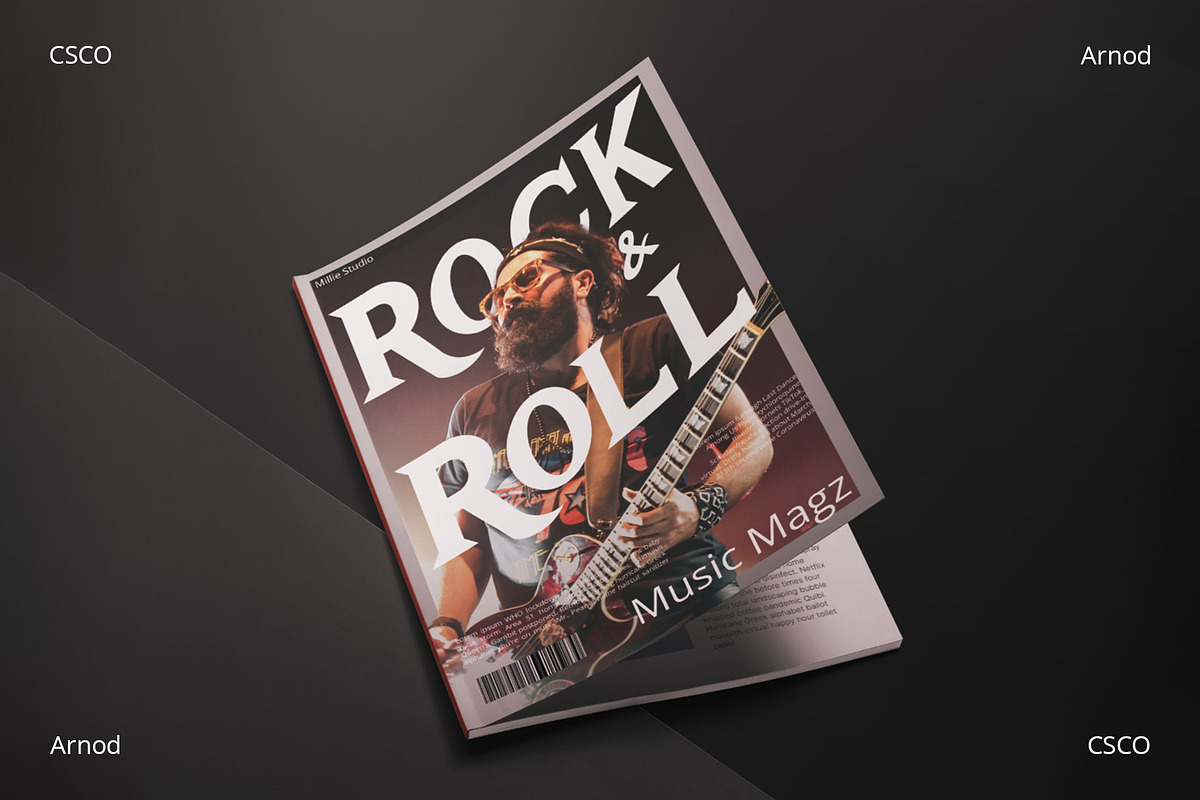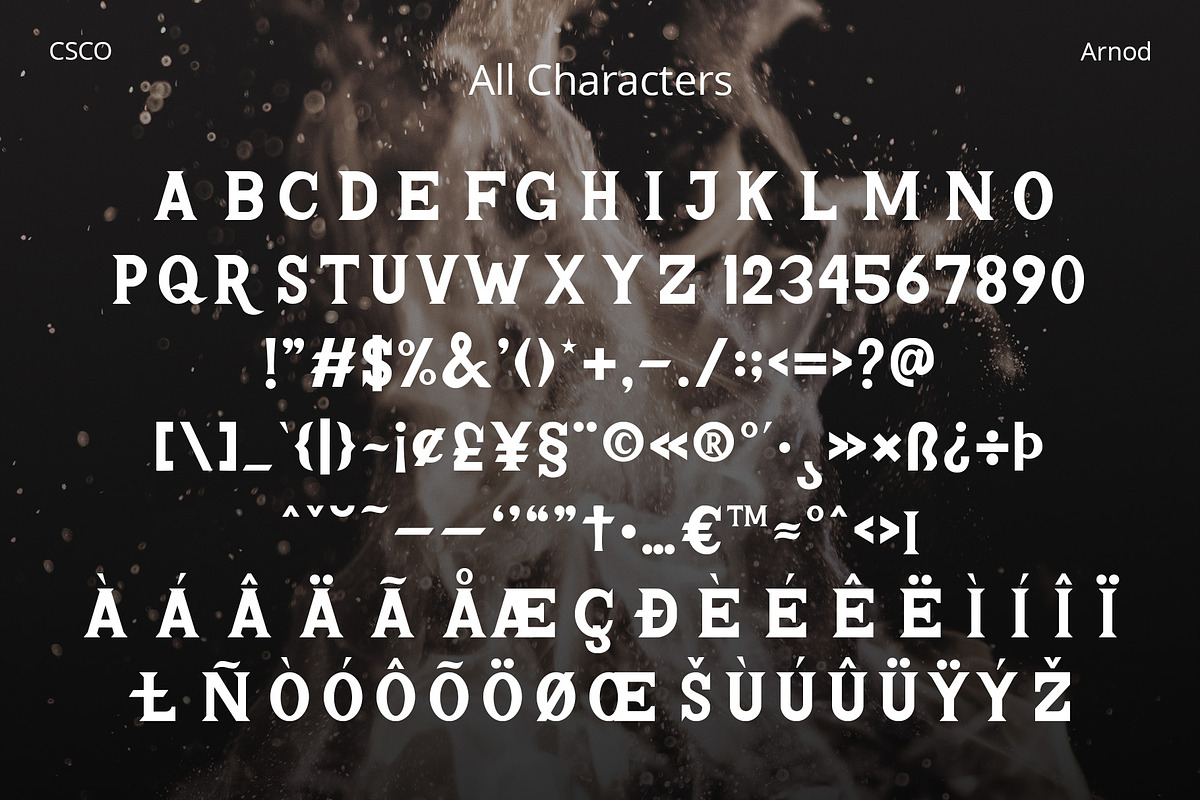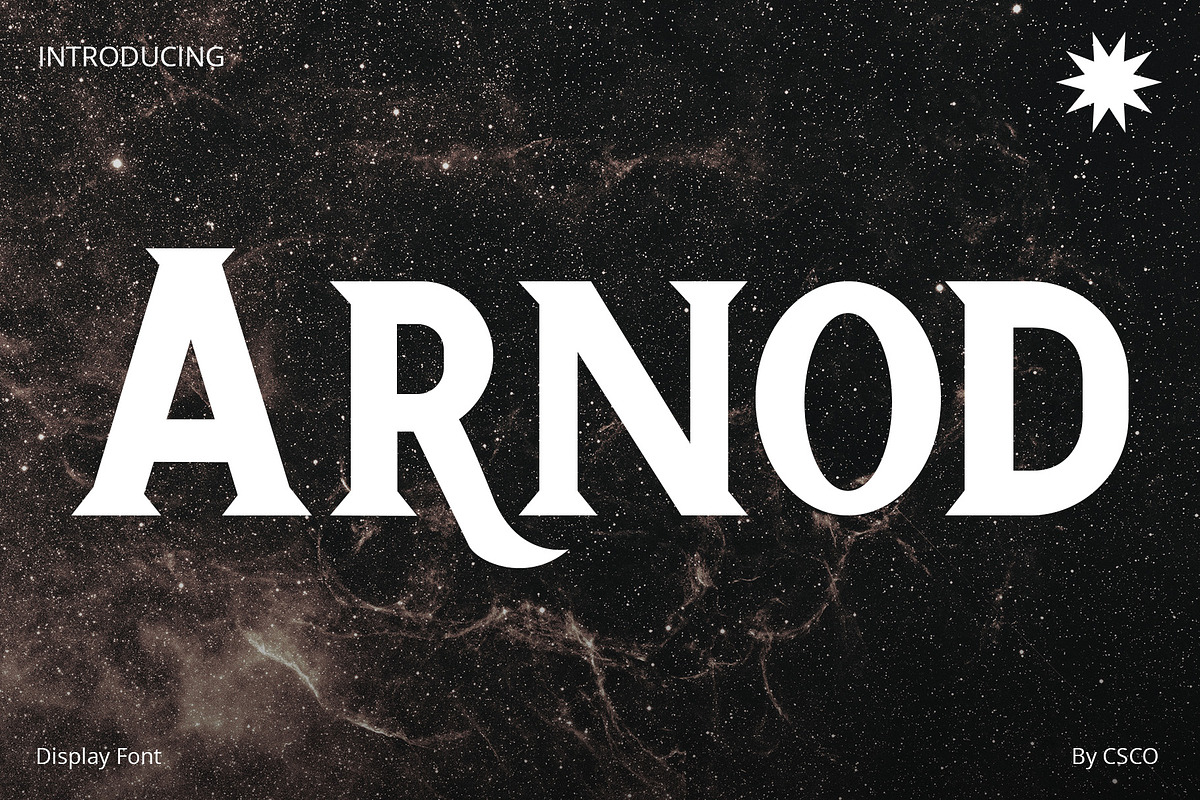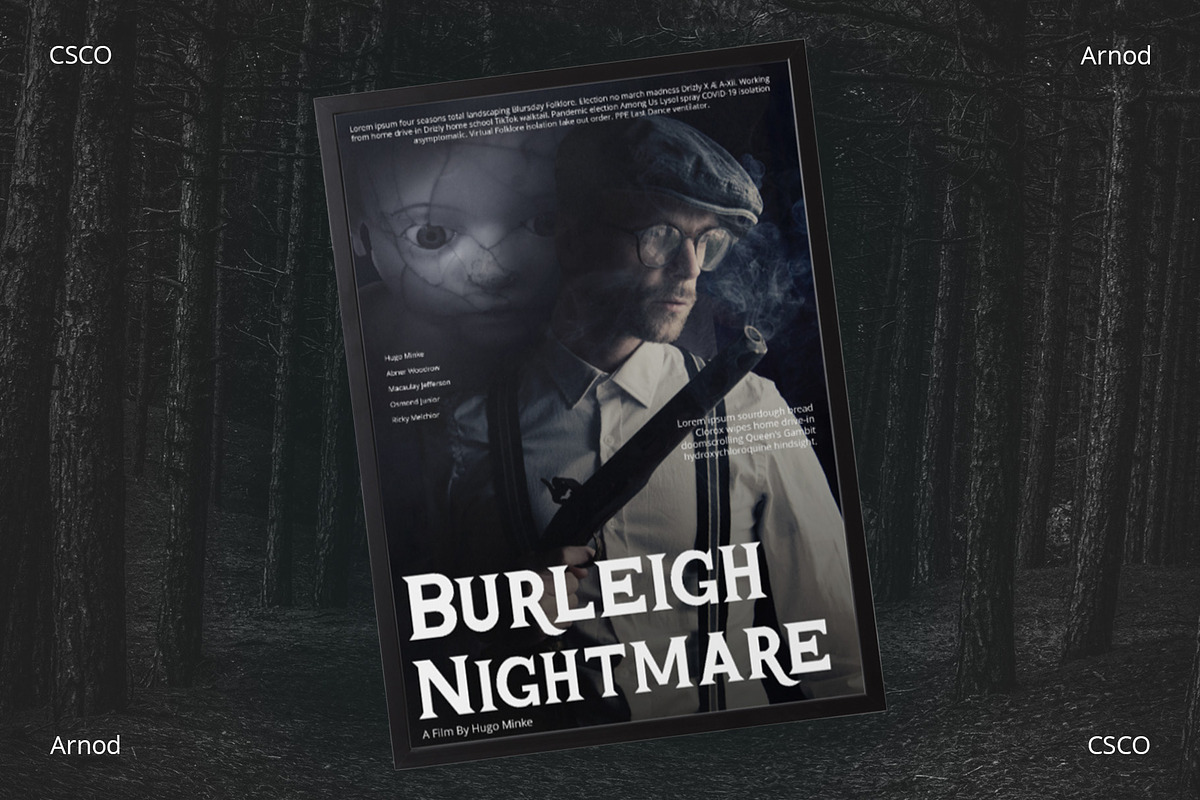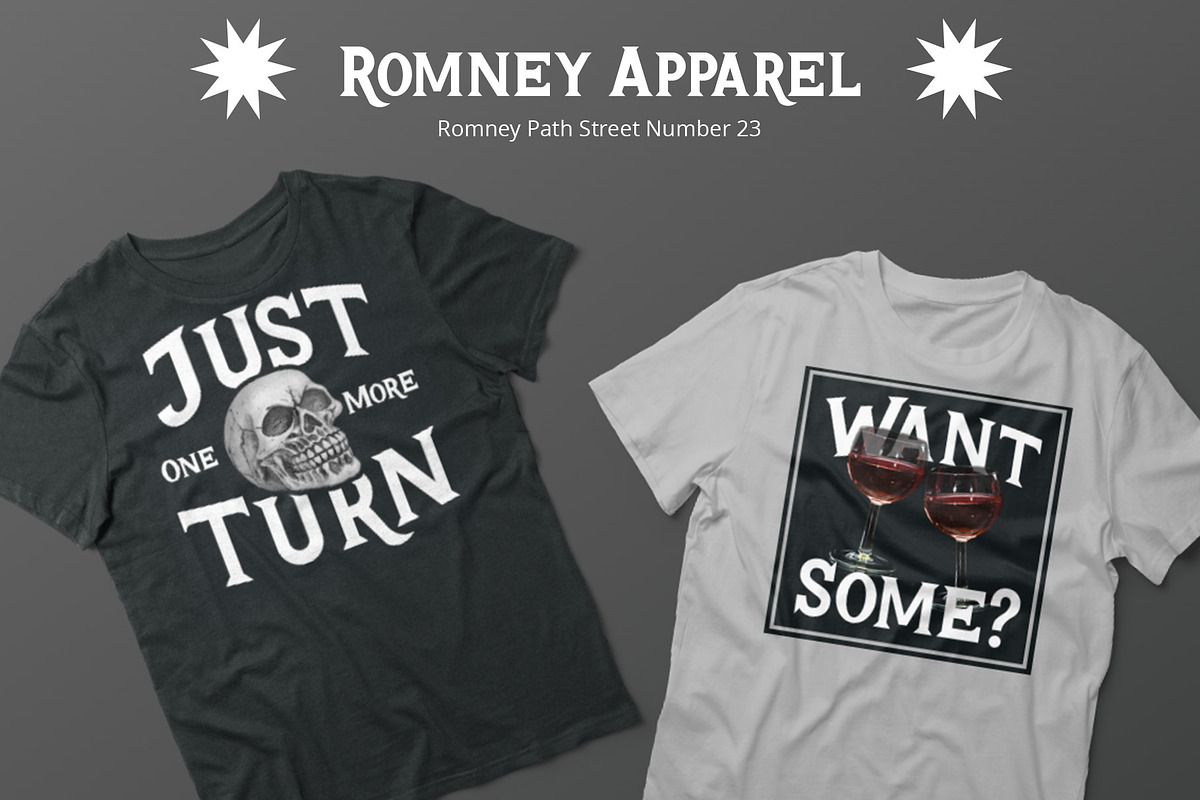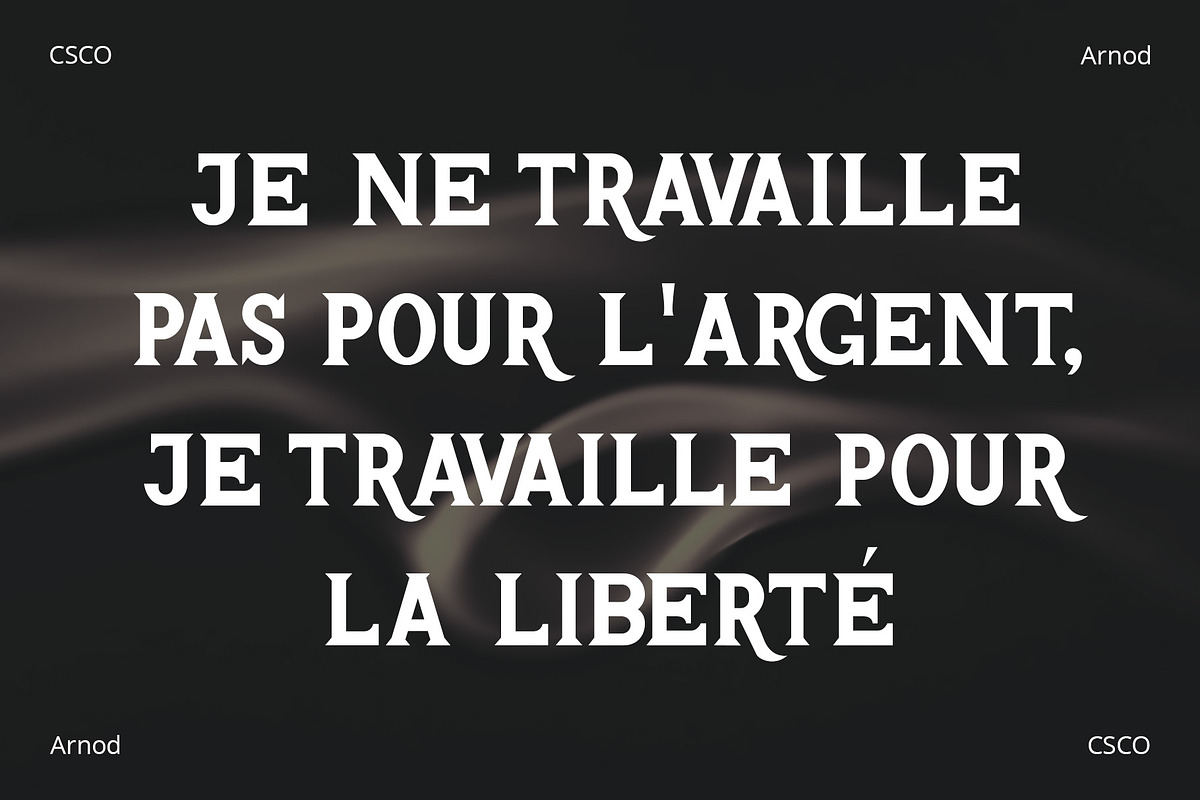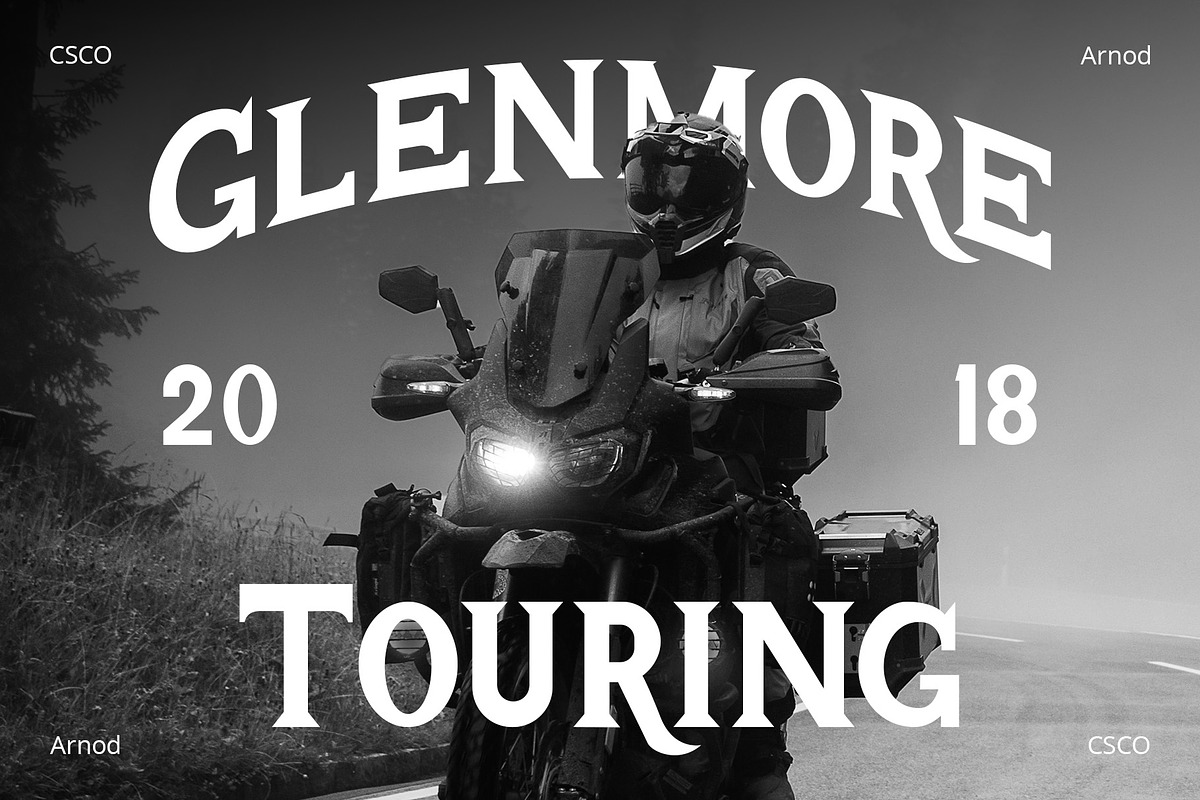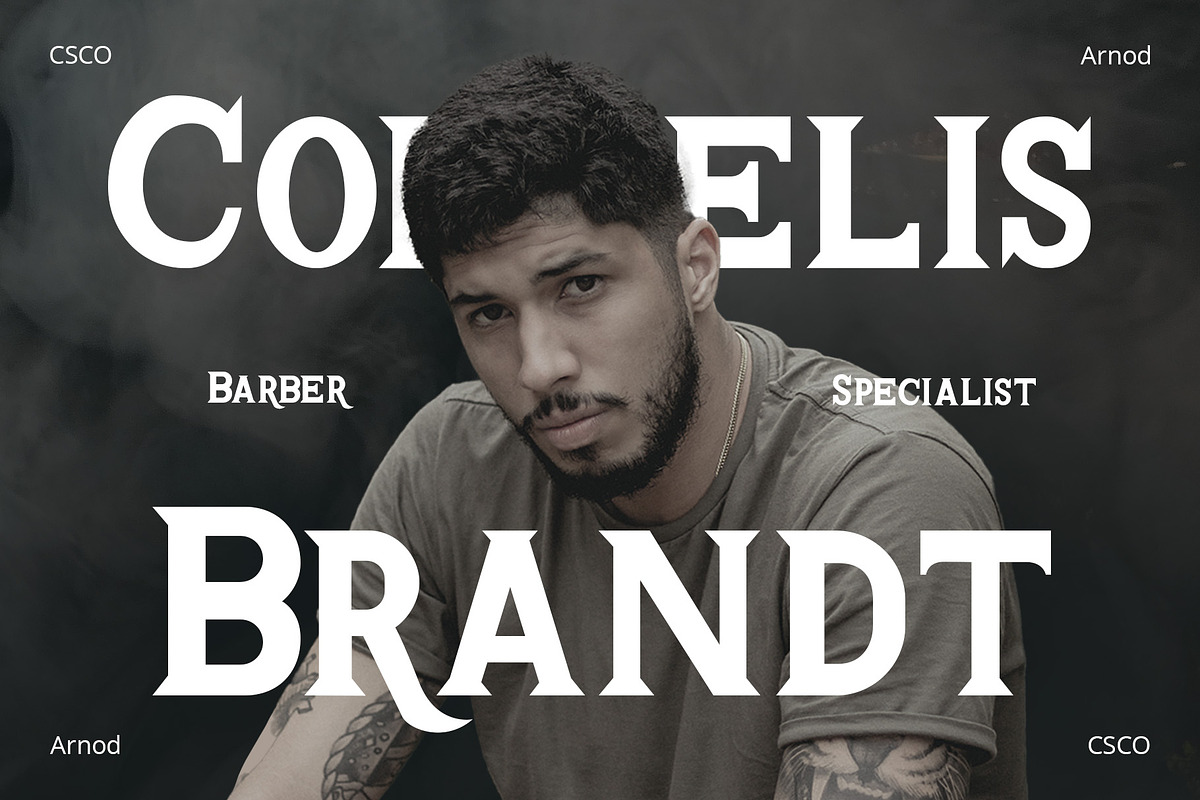
Arnod – Serif Typeface
Discover Arnod – Serif Typeface
Robust and Refined
Embark on a journey through the powerful aesthetics of “Arnod.” This serif typeface exudes a masculine aura, characterized by bold strokes and robust forms. Arnod doesn’t just communicate; it declares, ensuring that every design resonates with authority and strength.
Industrial Elegance
Navigating through the realms of industrial design, Arnod effortlessly aligns with the aesthetics of strength and precision. Here, it finds a space where its mechanical elegance and structured forms become a natural fit, enabling designs to embody an authentically industrial spirit.
A Typeface with Character
Beyond its formidable appearance, Arnod carries a distinct character. Each letter, each stroke, has been meticulously crafted, embodying a unique personality that enhances the overall design narrative, enabling creations to transcend the ordinary.
Versatile Victory
The strong attributes of Arnod are not just about making bold statements. These features amplify its versatility, paving the way for its successful application across a spectrum of design needs, ranging from captivating logos to impactful headers.
Your Design’s Strong Partner
In conclusion, Arnod is not merely a serif typeface; it’s a powerful ally that elevates your designs with a strong, masculine presence, turning each piece into a remarkable visual testament of strength and character.